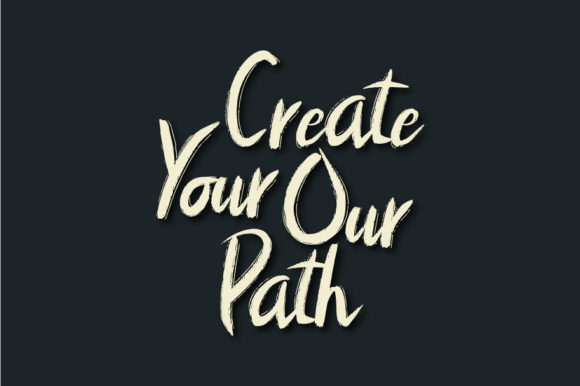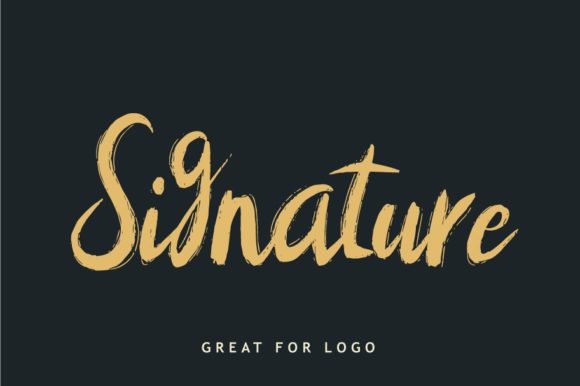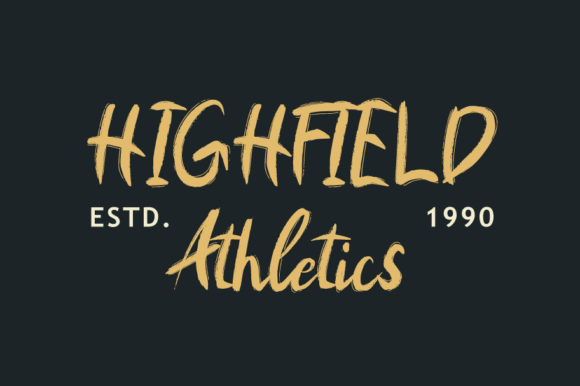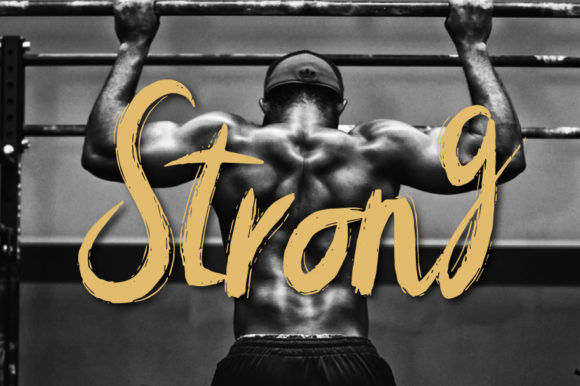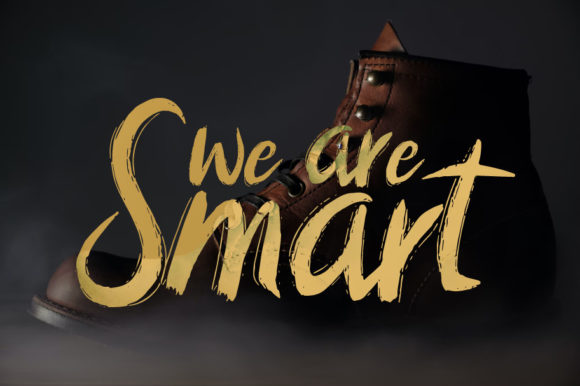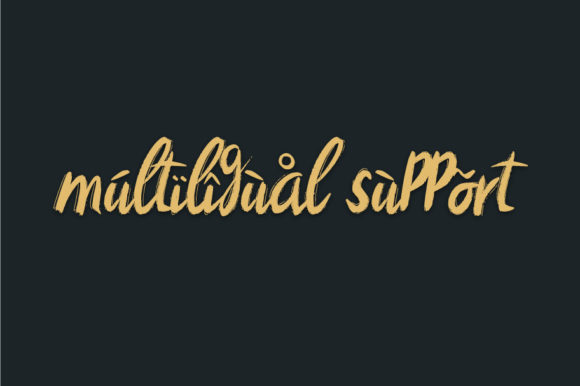
Introduction to Atliks Font
Atliks is a cool, brushed and expressive, street styled handwritten font.
It’s a bold choice of typography ideal for delivering a confident, custom-made style to your design projects .